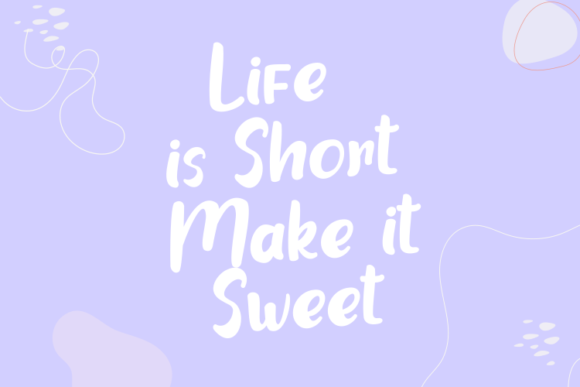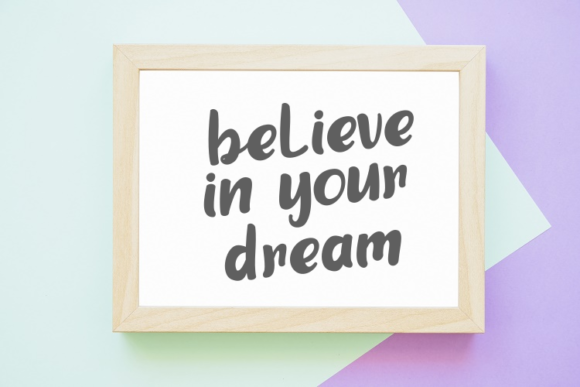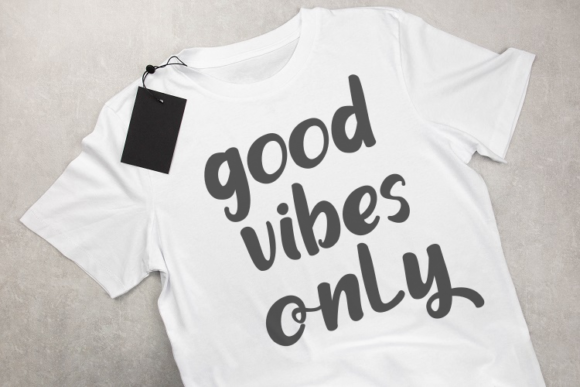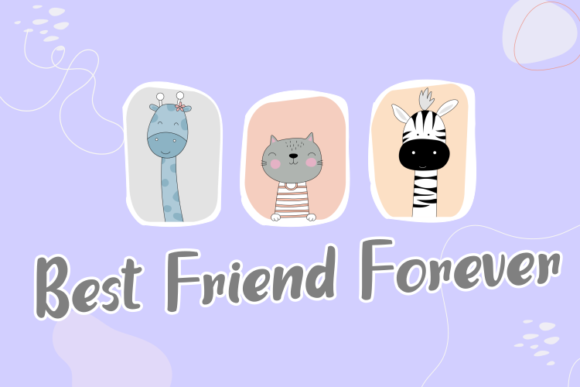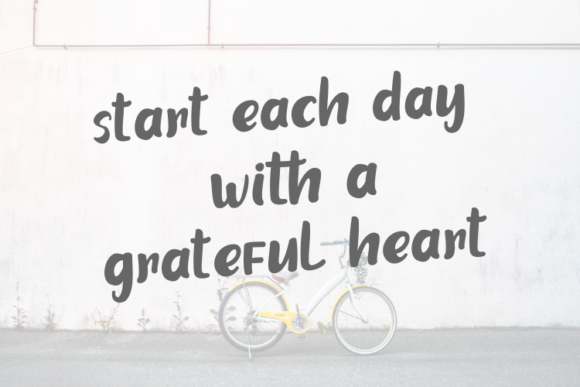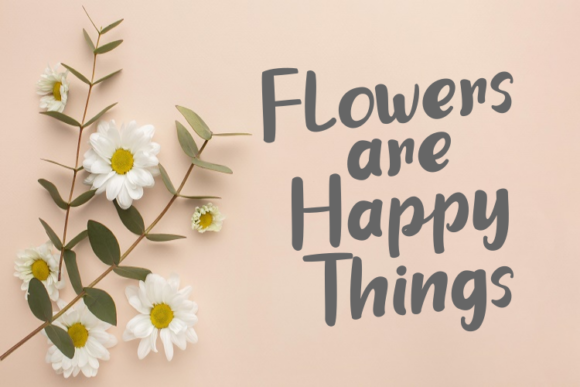
Discover the Charm of Good and Cozy Font: A Cute Handwritten Delight
Are you on the hunt for a font that adds a touch of warmth and personality to your designs? Look no further than Good and Cozy, a delightful handwritten font that is sure to brighten up any project. With its sweet and lively style, Good and Cozy is the perfect choice for designers and crafters who want to infuse their work with a sense of coziness and approachability.
The Characteristics of Good and Cozy Font
Good and Cozy is a carefully crafted handwritten font that boasts a range of charming characteristics. Its letters are fluid and organic, with a subtle irregularity that gives the font a delightfully human feel. The font’s lines are smooth and flowing, with a gentle bounce that adds to its sense of energy and playfulness.
One of the standout features of Good and Cozy is its versatility. This font is suitable for a wide range of design applications, from invitations and greeting cards to blog posts and social media graphics. Whether you’re creating something formal or informal, Good and Cozy is sure to add a touch of warmth and personality to your design.
Why Choose Good and Cozy Font?
So why should you choose Good and Cozy font for your next design project? Here are just a few reasons why this font stands out from the crowd:
- Unique and eye-catching: Good and Cozy is a one-of-a-kind font that is sure to grab attention. Its distinctive handwritten style sets it apart from more traditional fonts, making it perfect for designers who want to create something truly memorable.
- Easy to read: Despite its playful style, Good and Cozy is surprisingly easy to read. The font’s letters are clear and well-defined, making it suitable for use in both large and small sizes.
- Highly versatile: Good and Cozy can be used for a wide range of design applications, from digital graphics to print materials. Its flexibility makes it a great addition to any designer’s font library.
- Perfect for branding: If you’re looking to create a brand that feels friendly and approachable, Good and Cozy is an excellent choice. This font is sure to help you establish a tone that is warm, inviting, and engaging.
How to Use Good and Cozy Font in Your Designs
Good and Cozy is a versatile font that can be used in a variety of design applications. Here are a few ideas to get you started:
- Invitations and greeting cards: Add a touch of warmth and personality to your invitations and greeting cards with Good and Cozy font. This font is perfect for creating handmade-style cards and invites that feel truly special.
- Blog posts and social media graphics: Use Good and Cozy to add a playful touch to your blog posts and social media graphics. This font is sure to help you establish a tone that is friendly and approachable.
- Branding and packaging: Good and Cozy is an excellent choice for branding and packaging design. Use this font to create a logo or label that feels warm, inviting, and engaging.
Tips for Pairing Good and Cozy Font with Other Fonts
Good and Cozy is a versatile font that can be paired with a range of other fonts to create a unique and eye-catching design. Here are a few tips for pairing Good and Cozy with other fonts:
- Pair with a sans-serif font: Good and Cozy pairs beautifully with sans-serif fonts like Arial or Helvetica. This combination creates a nice contrast between the playful, handwritten font and the clean, modern sans-serif font.
- Pair with a serif font: If you want to create a more traditional look, try pairing Good and Cozy with a serif font like Times New Roman or Georgia. This combination adds a touch of sophistication and elegance to your design.
| Font Name | Good and Cozy Font |
| Author | Rvandtype |
Good and Cozy font is a delightful handwritten font that is sure to add a touch of warmth and personality to your designs. With its sweet and lively style, this font is perfect for designers and crafters who want to create something truly special. Whether you’re working on a digital graphic or a print project, Good and Cozy is an excellent choice. So why not give it a try and see the difference it can make in your designs?